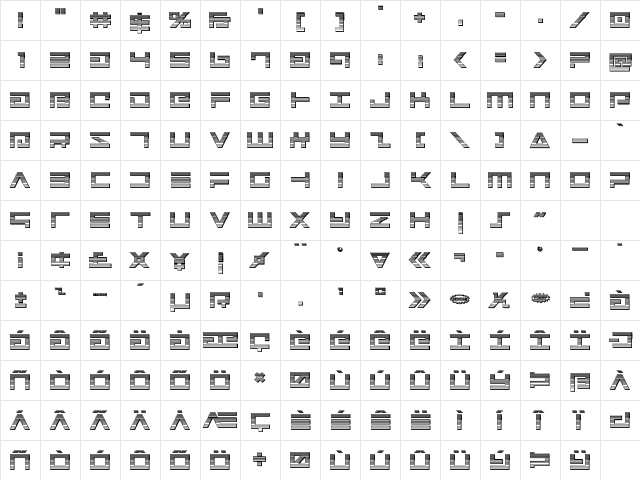
Complete Avenger Chrome Regular glyph index. Displaying only characters natively supported by Avenger Chrome Regular font.
Avenger Chrome is a composed and adaptable typeface that performs quietly and consistently across a wide range of design contexts.